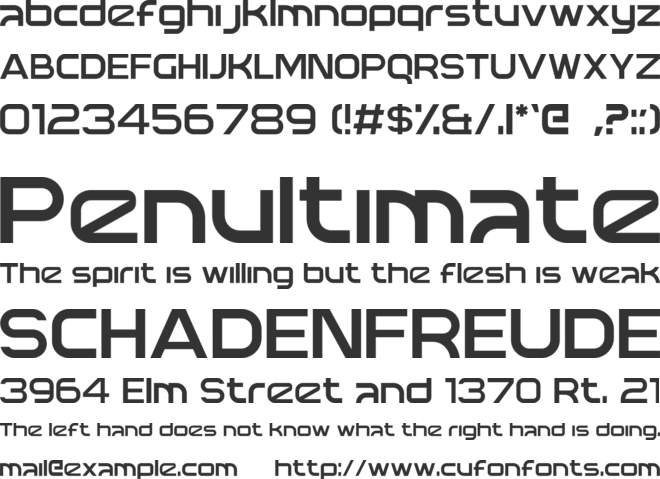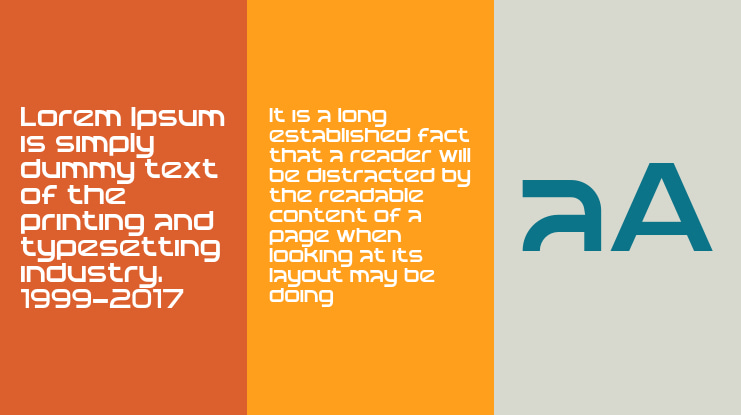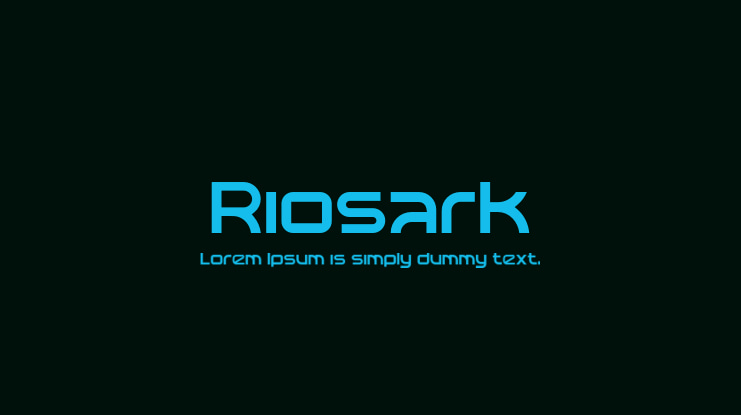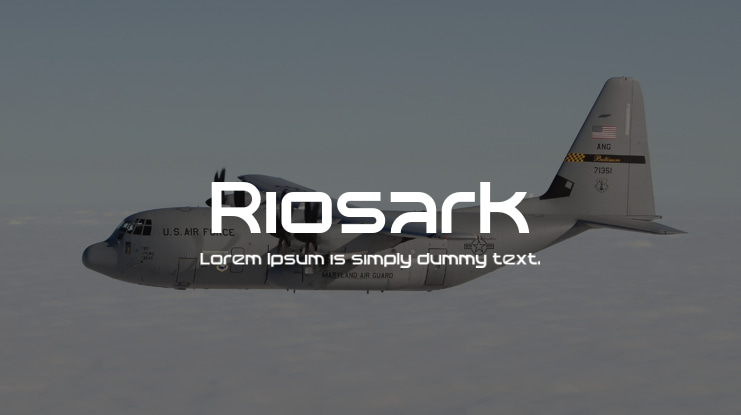
Riosark Font
RIOSARK is a modern and futuristic sans-serif typeface designed with precision and versatility. Its clean, strong, and minimalistic design makes it ideal for contemporary projects that demand attention and clarity. With three distinct weights—Bold, Regular, and Light—RIOSARK adapts seamlessly to diverse design needs, from bold headlines to subtle text elements.